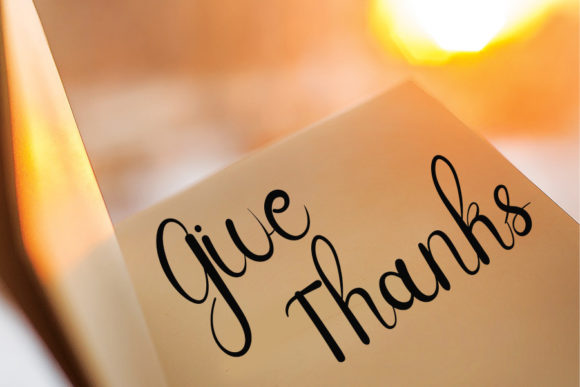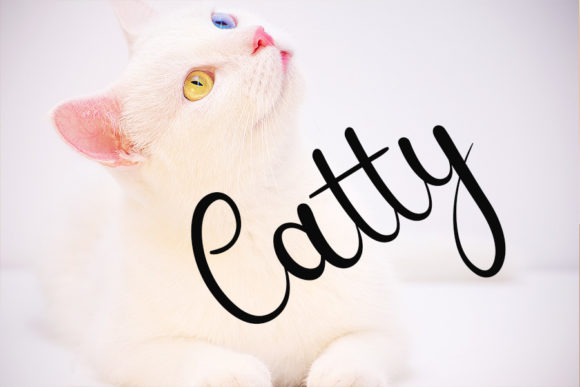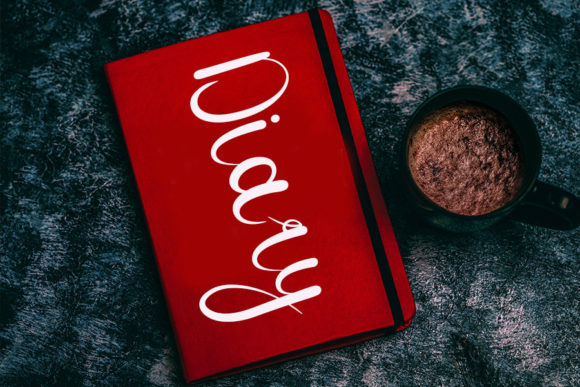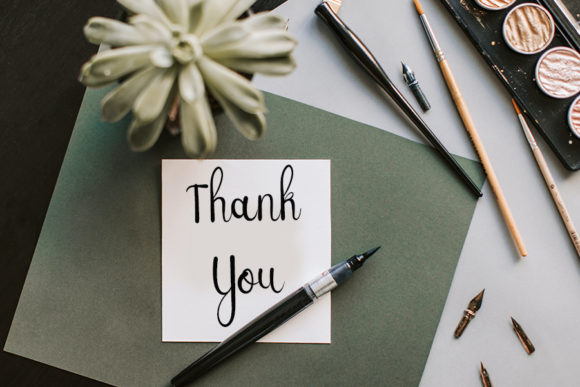
Introducing Hallimun Font: A Timeless Handwritten Treasure
Are you on the hunt for a font that adds a touch of elegance and whimsy to your designs? Look no further than Hallimun Font, a lovely and timeless handwritten font that’s perfect for creating eye-catching logos, branding, and quotes. With its unique and beautiful touch, Hallimun Font is sure to make your design come alive!
Handwritten fonts have a way of adding a personal touch to any design. They evoke feelings of warmth, friendliness, and approachability, making them perfect for brands that want to connect with their audience on a more intimate level. Hallimun Font is no exception, with its delicate and charming letterforms that are sure to capture the hearts of designers and crafters alike.
What Makes Hallimun Font Special?
So, what sets Hallimun Font apart from other handwritten fonts out there? For starters, every letter has a unique and beautiful touch that adds to the font’s overall charm. The letters are carefully crafted to have a sense of movement and fluidity, making them perfect for creating dynamic and engaging designs. Whether you’re looking to create a logo, branding materials, or social media graphics, Hallimun Font is the perfect choice.
Hallimun Font is incredibly versatile, making it perfect for a wide range of design applications. Here are just a few ideas to get you started:
- Logos: Create a memorable and eye-catching logo that showcases your brand’s personality with Hallimun Font.
- Branding: Use Hallimun Font to add a touch of elegance and sophistication to your branding materials, including business cards, letterheads, and packaging.
- Quotes: Add a touch of inspiration and motivation to your social media graphics and blog posts with Hallimun Font.
Why Designers and Crafters Love Hallimun Font
Designers and crafters are always on the lookout for fonts that can help them create unique and engaging designs. Here are just a few reasons why Hallimun Font has become a favorite among designers and crafters:
- Unique and Beautiful: Hallimun Font has a unique and beautiful touch that adds to the overall charm of any design.
- Timeless: Unlike trendy fonts that quickly go out of style, Hallimun Font is a timeless treasure that will remain relevant for years to come.
- Versatile: Hallimun Font is incredibly versatile, making it perfect for a wide range of design applications.
Tips for Using Hallimun Font
Here are a few tips for getting the most out of Hallimun Font:
- Experiment with Colors: Hallimun Font looks great in a variety of colors, so don’t be afraid to experiment and find the perfect hue for your design.
- Play with Pairings: Hallimun Font pairs well with a variety of other fonts, so try pairing it with different fonts to create a unique and engaging design.
- Use it Sparingly: While Hallimun Font is beautiful, it can be overwhelming if used too much. Use it sparingly to add a touch of elegance and sophistication to your design.
In conclusion, Hallimun Font is a lovely and timeless handwritten font that’s perfect for creating eye-catching logos, branding, and quotes. With its unique and beautiful touch, Hallimun Font is sure to make your design come alive! Whether you’re a designer or crafter, Hallimun Font is a must-have in your font collection.